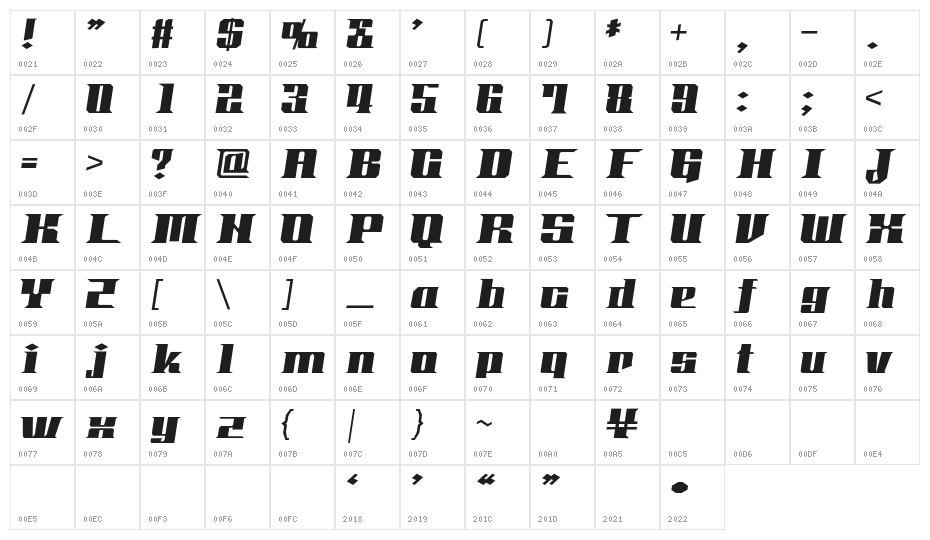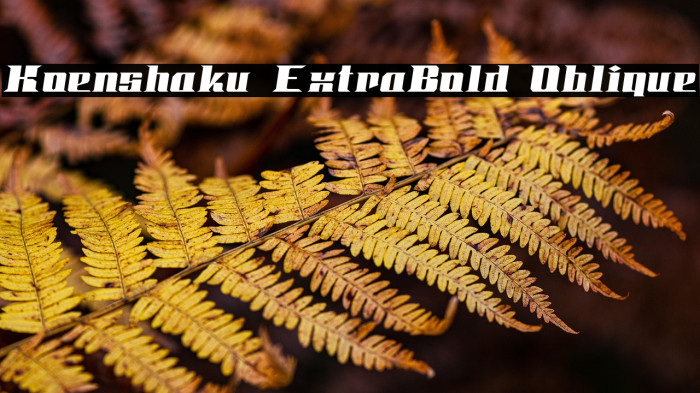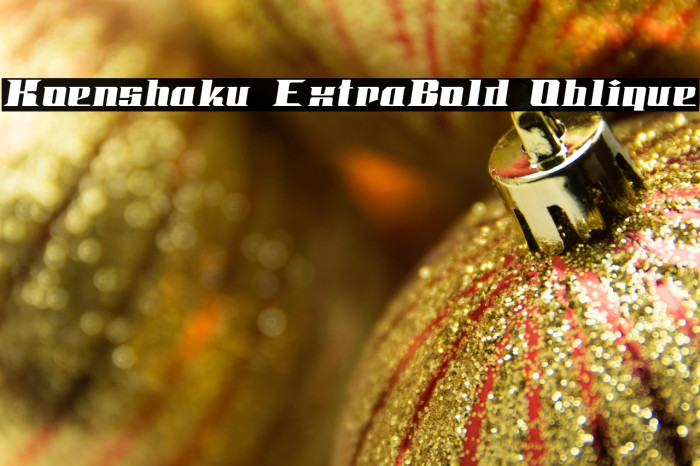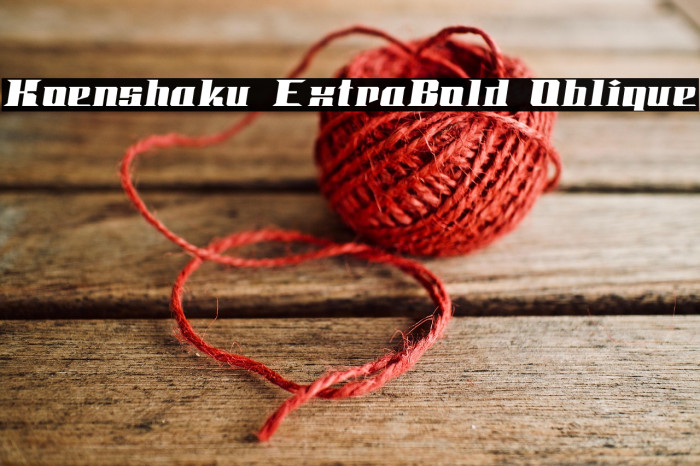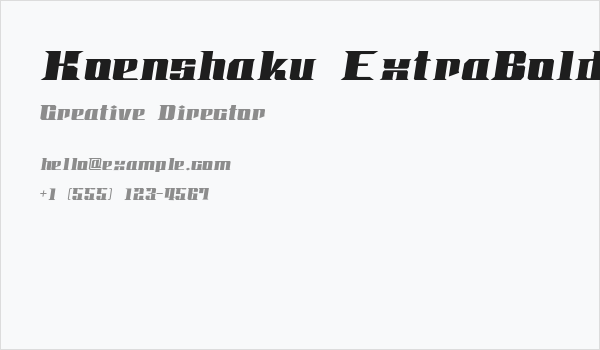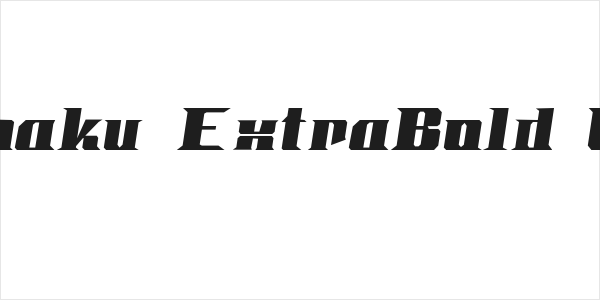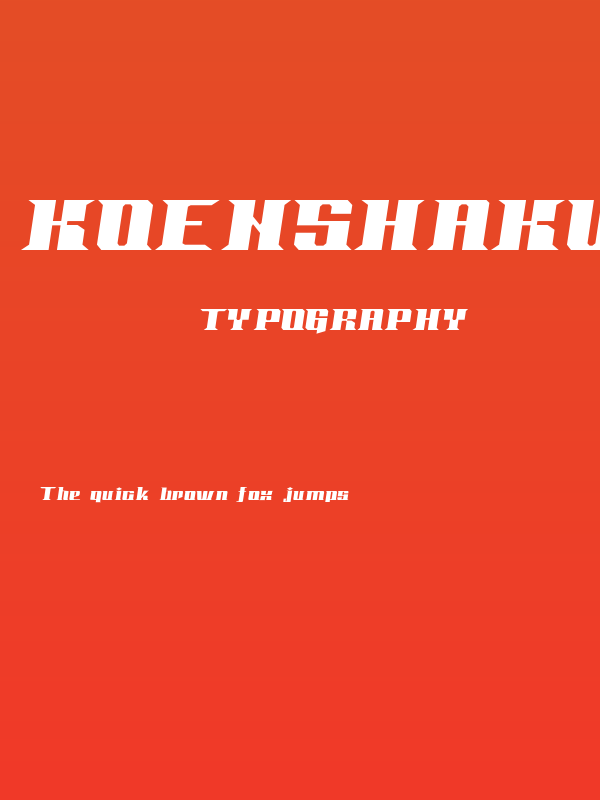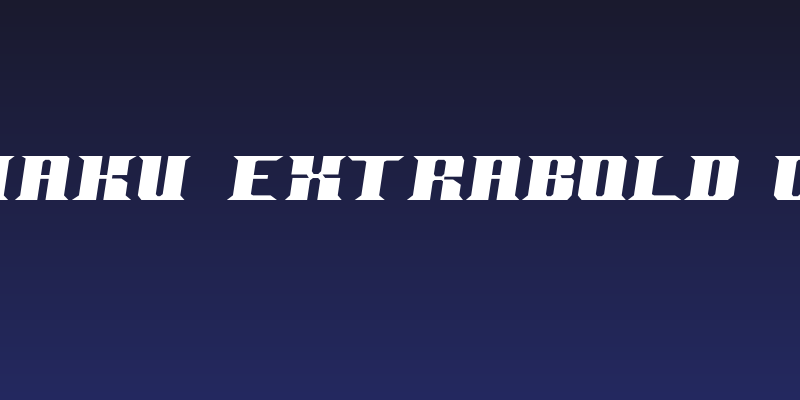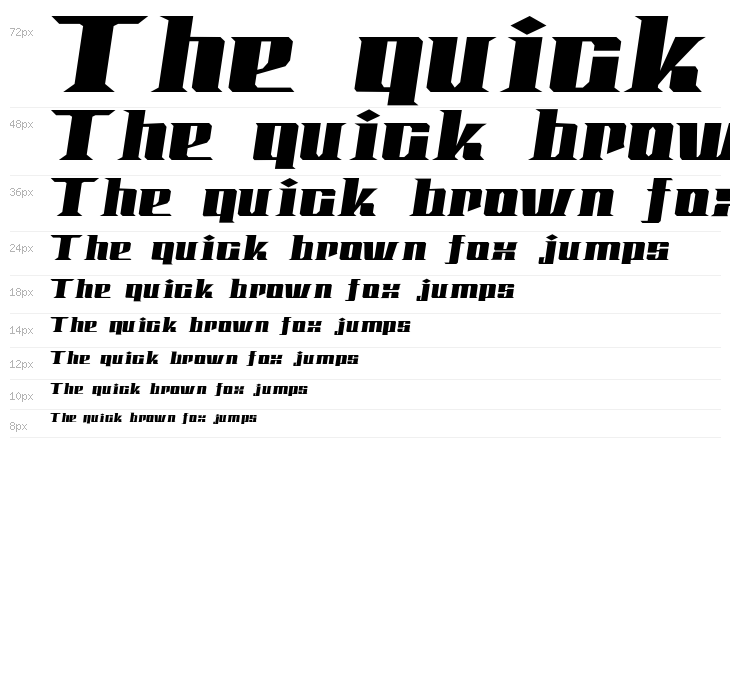
Koenshaku ExtraBold Oblique Font
Koenshaku ExtraBold Oblique Description
This font exhibits a bold and dynamic style with a strong oblique slant, giving it a sense of movement and urgency. The characters are sharply defined with angular cuts and a geometric structure, creating a modern and assertive appearance. The uppercase letters are particularly striking, with a robust presence that commands attention. The lowercase letters maintain the same boldness, ensuring consistency throughout. The numerals and special characters follow the same design principles, making them easily recognizable and cohesive with the overall style. This font's unique design makes it suitable for impactful and eye-catching applications.
| Proposed Projects | Ideal for sports branding, action movie posters, video game titles, and dynamic advertising campaigns. |